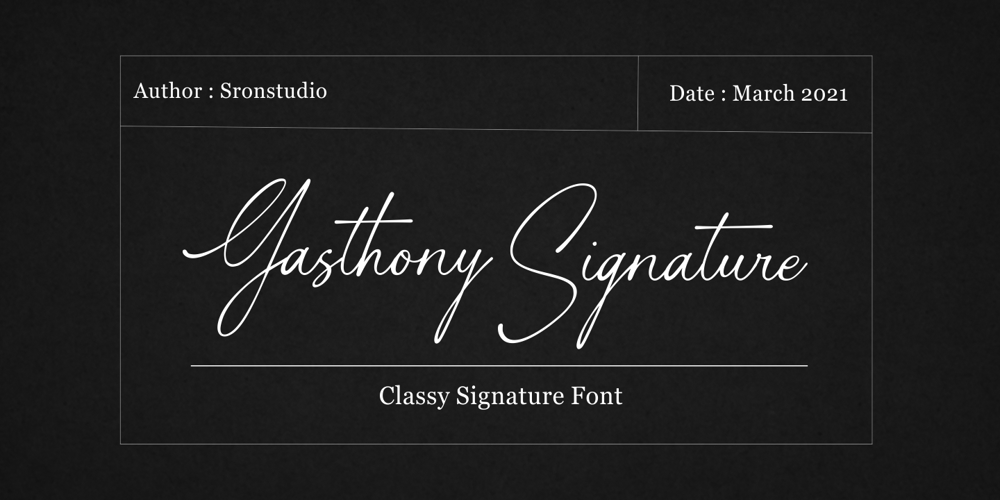
Gasthony Signature
Gasthony Signature font
Gasthony Signature Font Family was designed by Muhamad Yusron Billah and published by Sronstudio. Gasthony Signature contains 1 styles and family package options. Gasthony – Signature Font – Perfect for branding, invitation, stationery, wedding designs, social media posts, advertisements, product packaging, product designs, label, photography, watermark, special events, and more.Features: Uppercase and lowercase letters Swash alternates ( Beginning, Ending ) Multilingual symbols, numerals, and punctuation How To Access Alternate Swashes?You can read this article: https://helpx.adobe.com/illustrator/using/special-characters.htmlFollow Instagram: @sronstudioThank You!